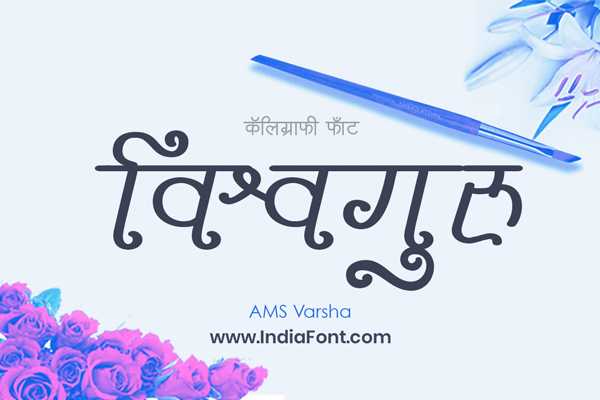
AMS Varsha
Embrace the beauty of AMS Varsha, a calligraphy font that captures the essence of grace and fluidity. This font is ideal for designers looking for stylish Hindi fonts, calligraphy fonts that evoke a sense of elegance, or fonts that offer a unique font style download.
About AMS Varsha Font
Embrace the beauty of AMS Varsha, a calligraphy font that captures the essence of grace and fluidity. This font is ideal for designers looking for stylish Hindi fonts, calligraphy fonts that evoke a sense of elegance, or fonts that offer a unique font style download. This calligraphy font combines elegance with functionality, making it perfect for various design applications.
AMS Varsha is a professionally crafted calligraphy typeface that brings clarity and style to your projects. Designed with attention to detail, it supports hindi and marathi characters flawlessly.
Whether you're working on wedding-materials, invitations, headers-titles, or other creative projects, AMS Varsha delivers consistent performance across both digital and print media. This carefully designed typeface ensures readability and visual appeal in all your design work.
About AMS Varsha Typography Style
AMS Varsha is a professionally crafted calligraphy font that exemplifies modern Hindi typography design. This free font is perfect for designers seeking professional branding and logo design projects.
Available in 1 weight and supporting hindi, marathi scripts, AMS Varsha offers exceptional versatility for both digital and print media. Whether you're working on wedding-materials, invitations, headers-titles, this carefully designed typeface ensures consistent quality and professional results across all your typography projects.